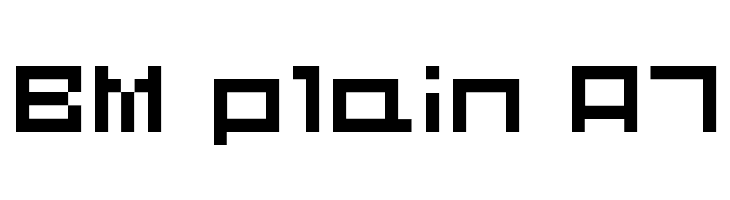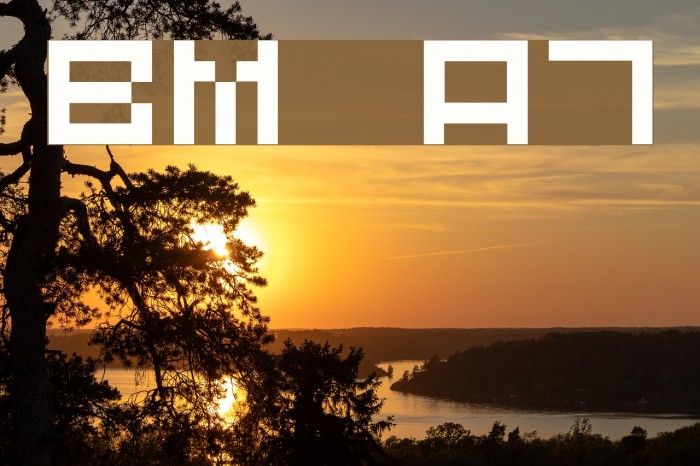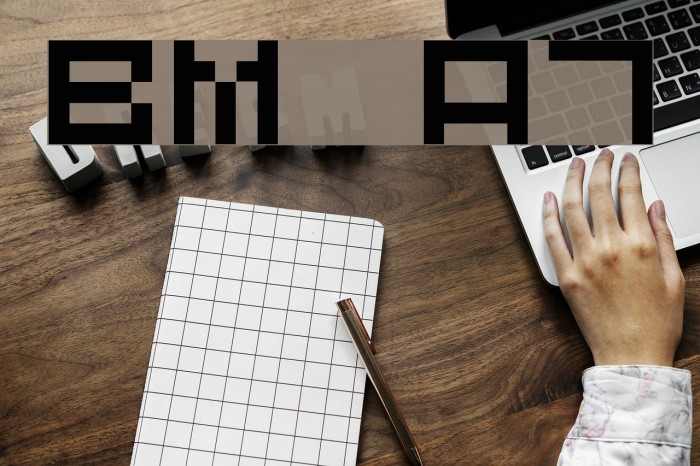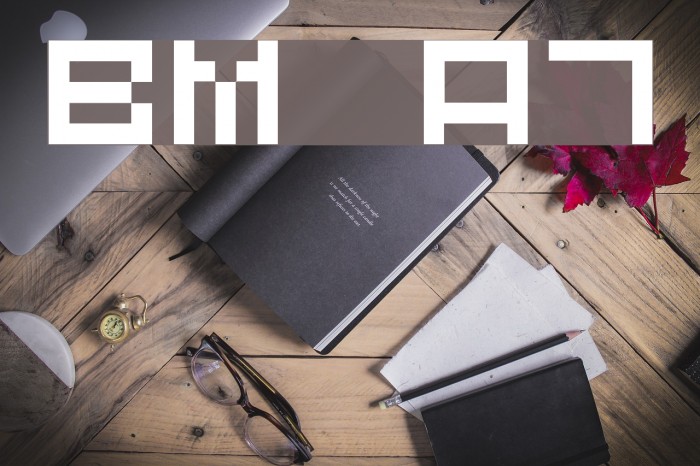
BM plain A7 Font
BM plain A7 Description
This font features a pixelated, blocky design reminiscent of early digital displays and video games. Each character is constructed with a grid-like precision, giving it a distinctly retro and technological feel. The uppercase and lowercase letters maintain a consistent height, contributing to a uniform appearance. Numbers and special characters follow the same pixelated style, ensuring a cohesive look across all glyphs. The font's geometric structure makes it ideal for projects that require a digital or vintage gaming aesthetic.
| Overall Style | Vintage |
| Use Case | Logos, Headlines, Digital displays |
| Proposed Projects | Ideal for video game design, digital art projects, retro-themed posters, and tech-related branding. |